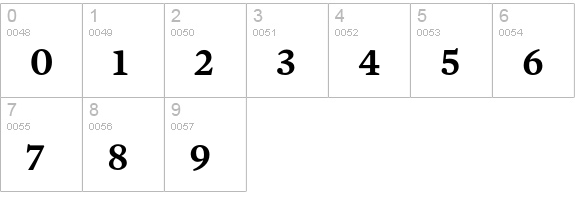
Mercury Text G3 Semibold SC Font Details
Mercury Text G3 Semibold SC is a sub-bold, structured variant in the Mercury typeface family \xE2\x80\x94 well suited to sub-headlines and emphasised passages.
Mercury Text G3 Semibold SC font is a versatile and modern typeface that strikes the perfect balance between professionalism and elegance. With its strong and bold appearance, this font is ideal for making a statement in your design projects. The semibold weight adds a touch of sophistication, making it suitable for a wide range of applications such as headlines, branding, and advertising. What sets Mercury Text G3 Semibold SC font apart is its exceptional readability and clarity, making it a top choice for any project where legibility is key. Whether you're designing a website, creating a brochure, or working on a logo, this font will ensure that your message is communicated effectively. And the best part? Mercury Text G3 Semibold SC font is available for free download at FontsMarket.com. This means you can start using this high-quality typeface in your projects without any cost. Don't miss out on the opportunity to elevate your designs with the sleek and stylish Mercury Text G3 Semibold SC font today.